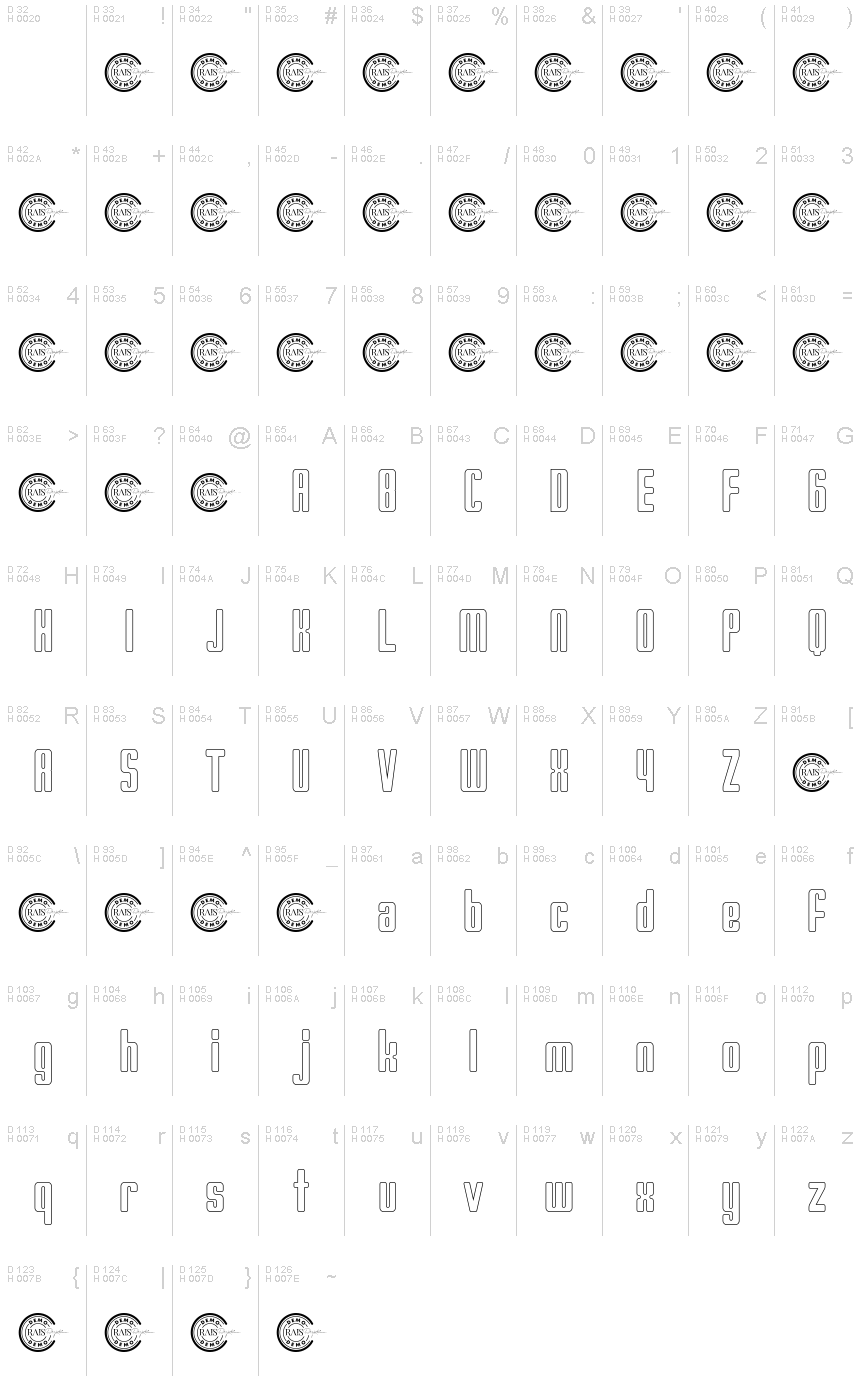
Panoramatic Outline is a font that captivates people. This was made by the very talented group of individuals known as RaisProject. The modern beauty of this typeface comes from a combination between being condensed, sans-serif and having a complex outlined design. In other words, you could say it’s simple but not too simple; or maybe elegant without being overdone – whichever way works best for you!
With clean lines and balanced proportions Panoramic Outlines could be used in many different places where they might fit naturally next to both traditional and contemporary aesthetics alike.
There are endless possibilities when using such versatile fonts like these because no two projects are ever the same – especially not with Panoramatic Outline around! It can be applied to editorial layouts or branding initiatives just as easily as it would work well for eye catching display typography on digital interfaces. What sets it apart though is its ability to adapt itself into any situation visually speaking so that what may have been an ordinary looking website before now becomes sleek and modern; or perhaps a print campaign which was originally boring becomes sophisticated instead thanks to this amazing typeface! Even something like social media posts should never be underestimated because they too deserve some attention grabbing qualities brought forth by none other than our beloved friend Panoramatic Outline!